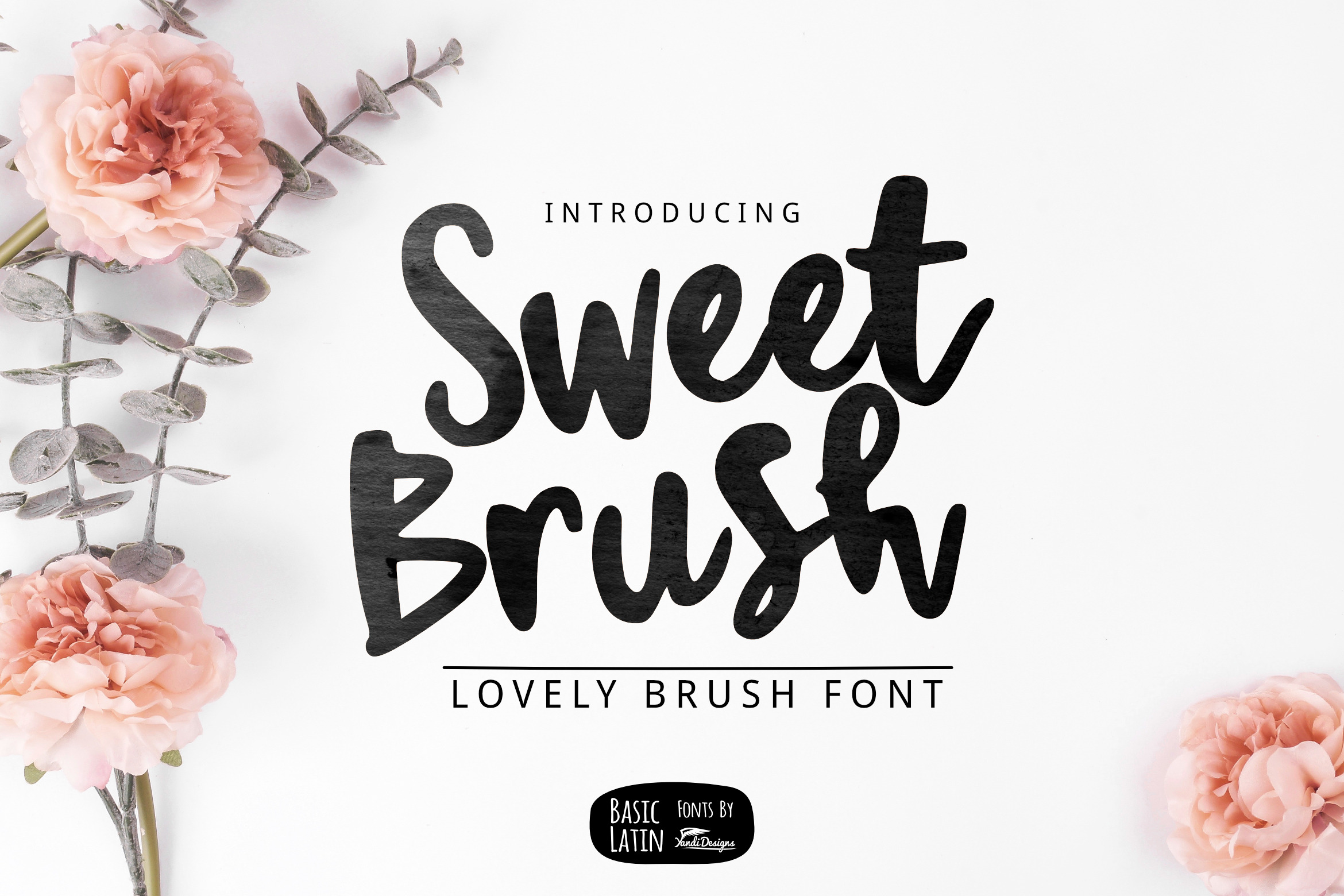
Sweet Brush Font
Hey Sweet Brush Font
Simple fresh artistic playful multipurpose script font , suitable for many project children book, quotes, logo , heading , title etc.
Basic Latin (Standard English character , number, symbol)